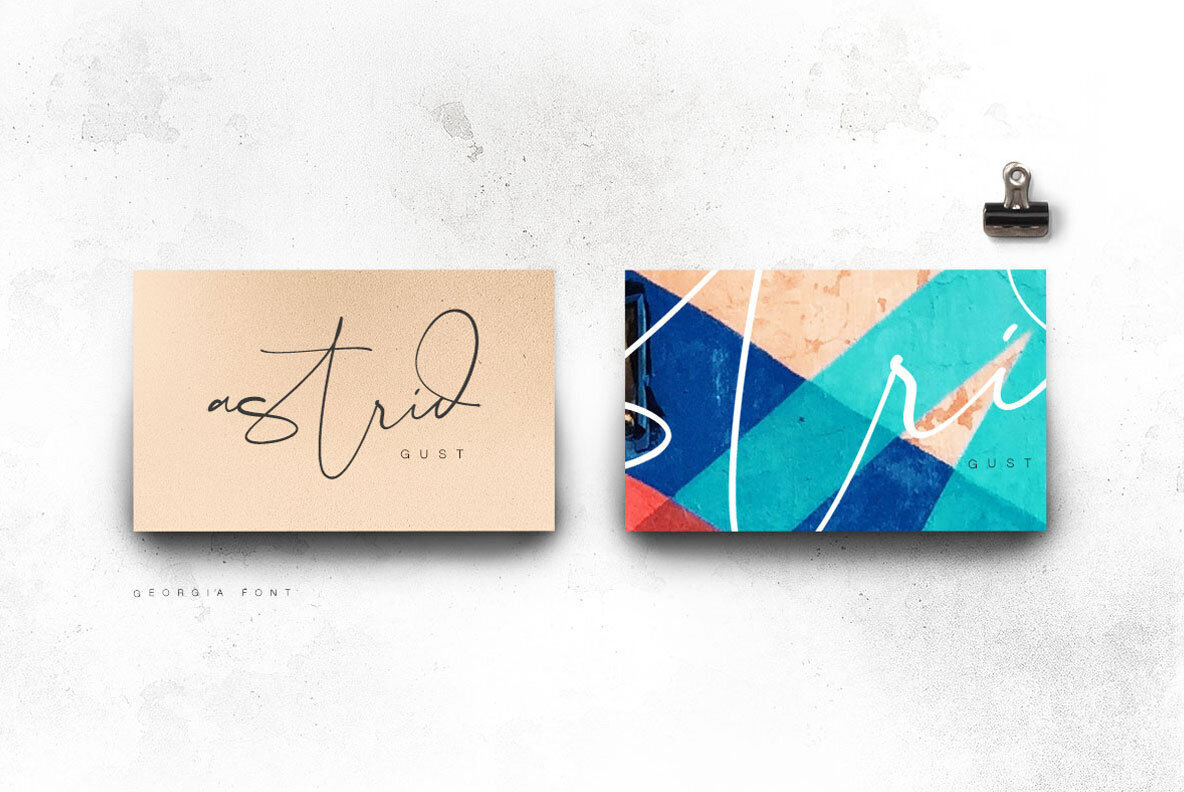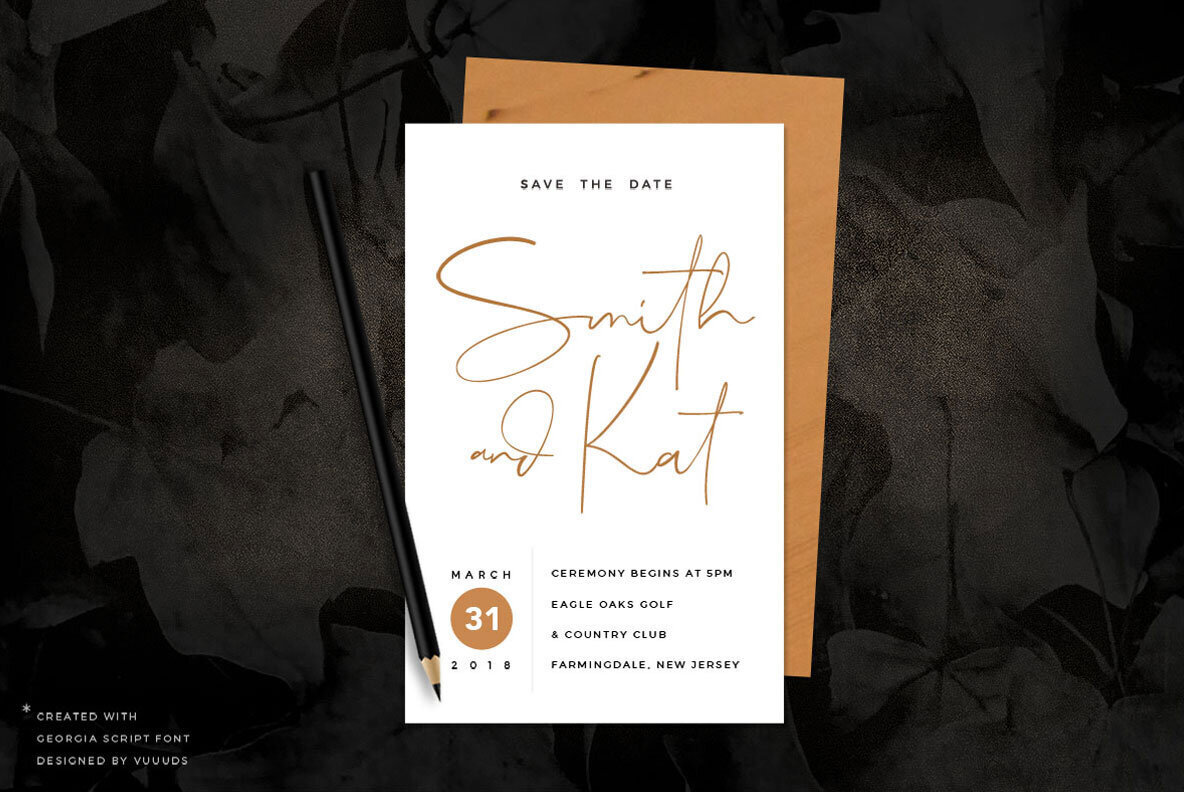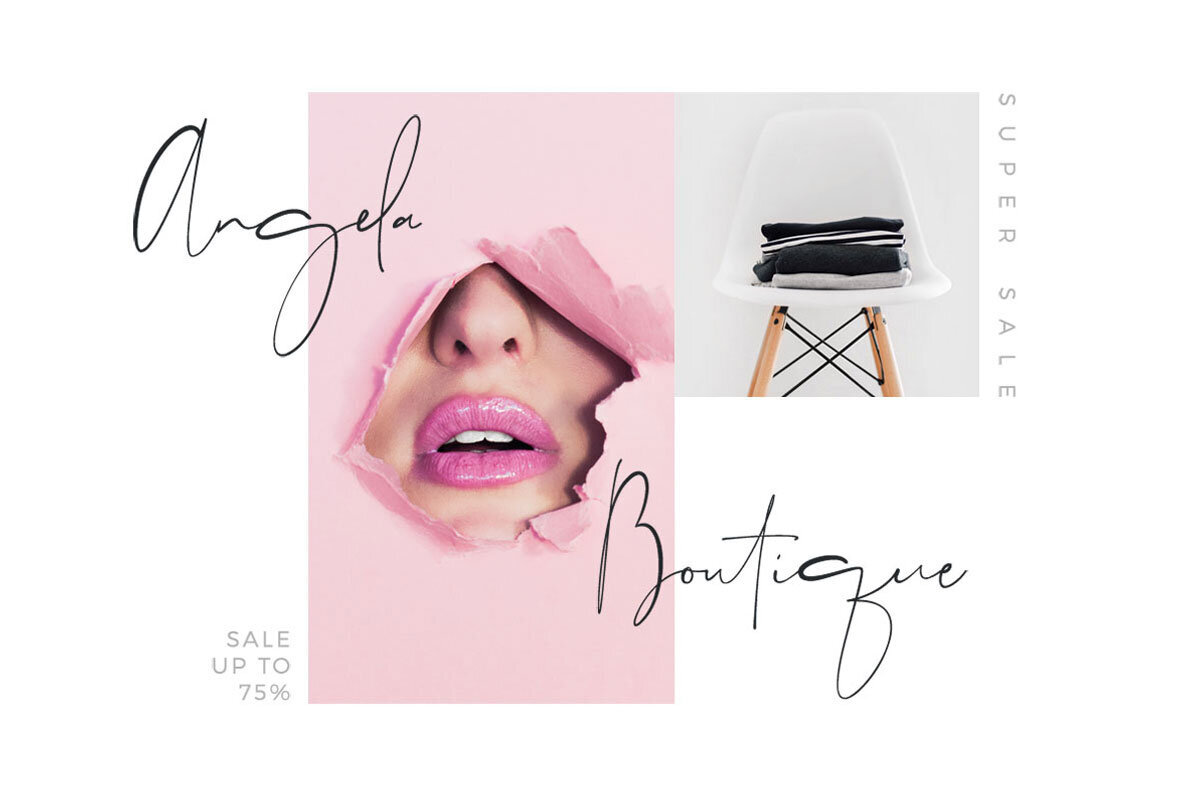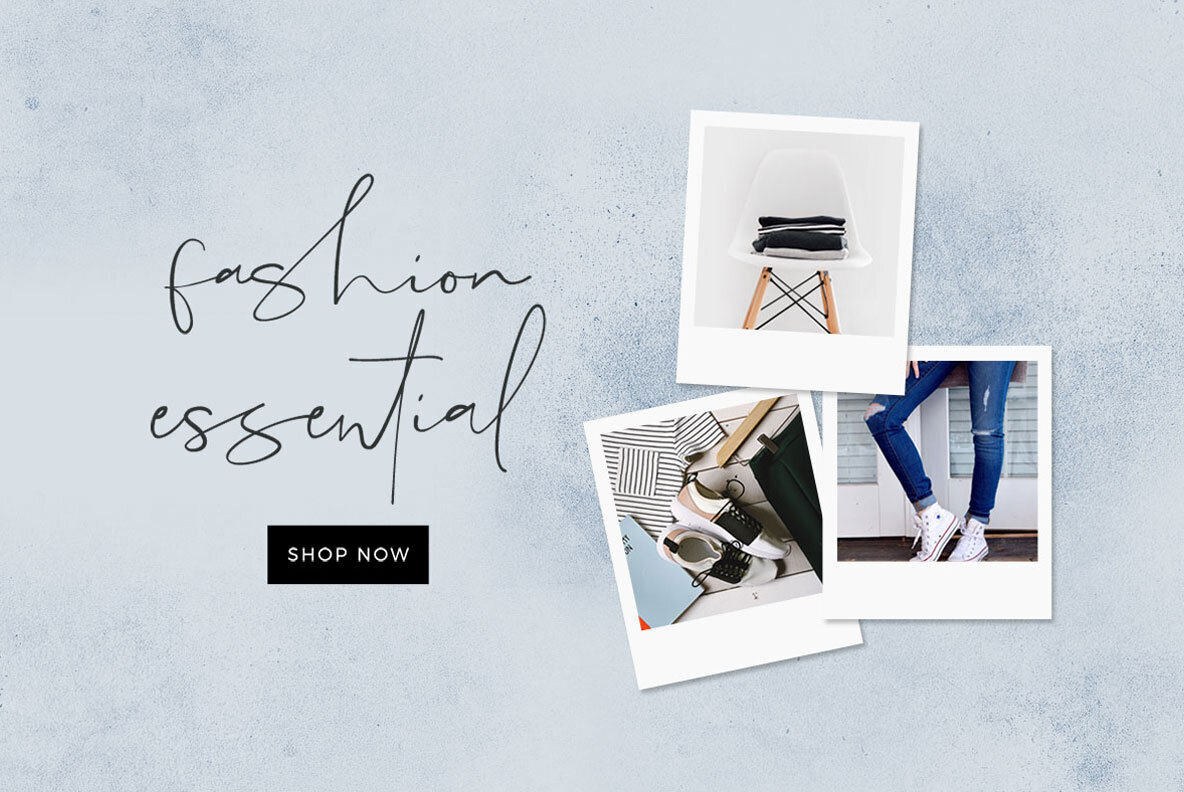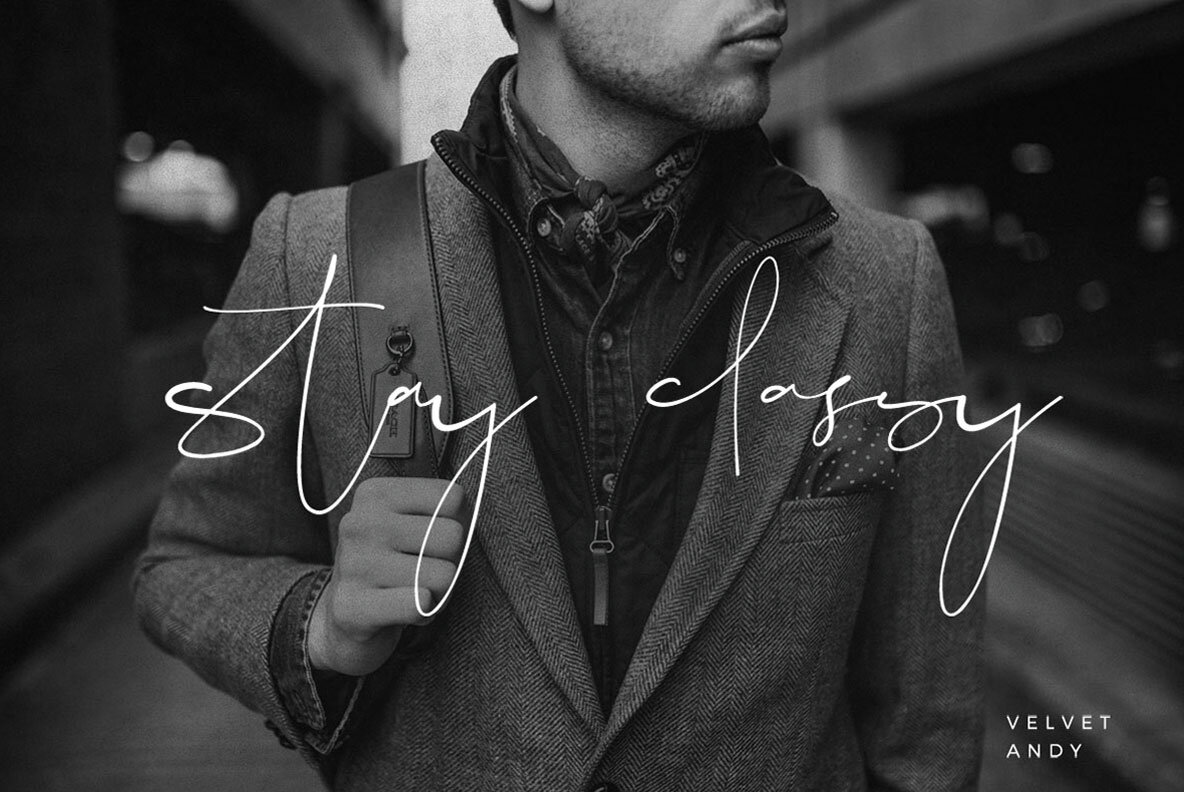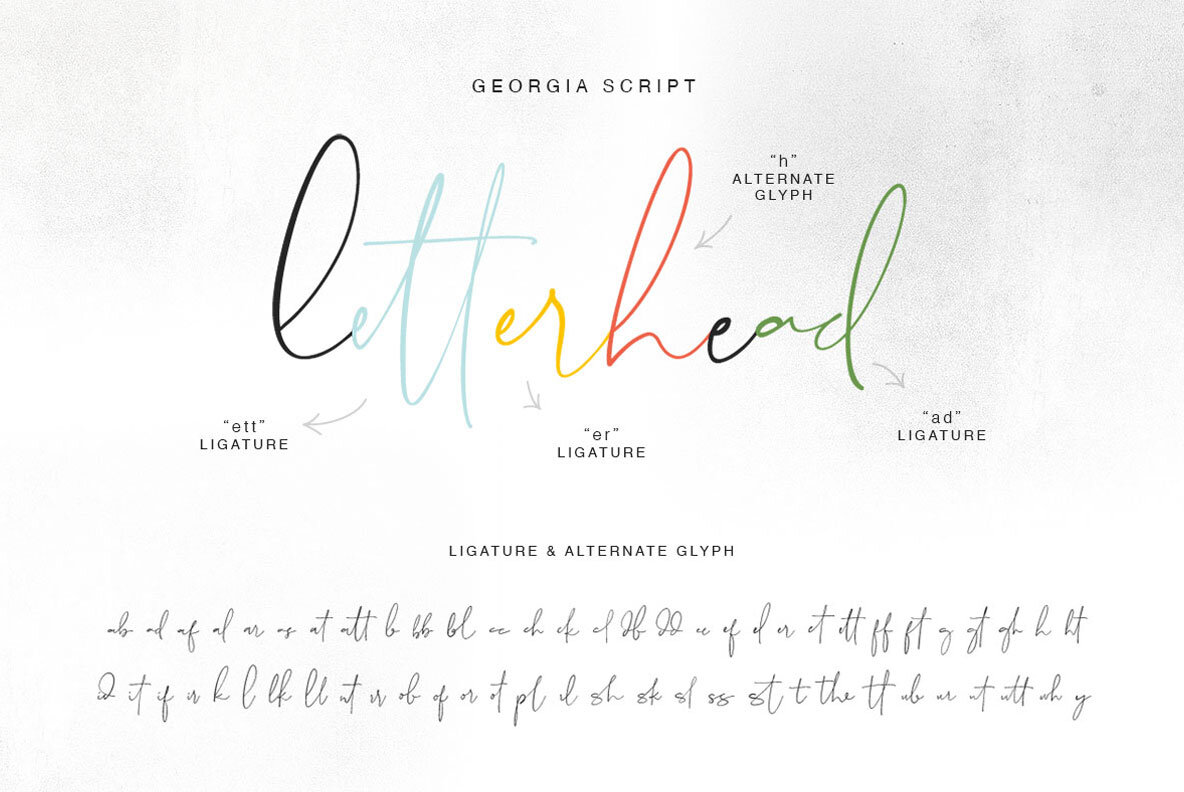
Georgia Script Font
Georgia Script
Georgia Script is modern feminine font, every single letters have been carefully crafted to make your text looks beautiful. With modern script style this font will perfect for many different project ex: photography, watermark, quotes, blog header, poster, wedding, branding, logo, fashion, apparel, letter, invitation, stationery, etc.
Ligature & alternate glyph: ab ad af al ar as at att b bb bl cc ch ck cl ct db dd ee ef el er et ett ff ft g gt gh h ht id it if ir k l lk ll nt rr ob of or ot pl rl sh sk sl ss st t the tt ub ur ut utt wh y
Foreign languages support: ÀÁÂÃÄÅÆÇÈÉÊËÌÍÎÏÐÑÒÓÔÕÖØÙÚÛÜÝßàáâãäåæçèéêëìíîïðñòóôõöøùúûüýÿ